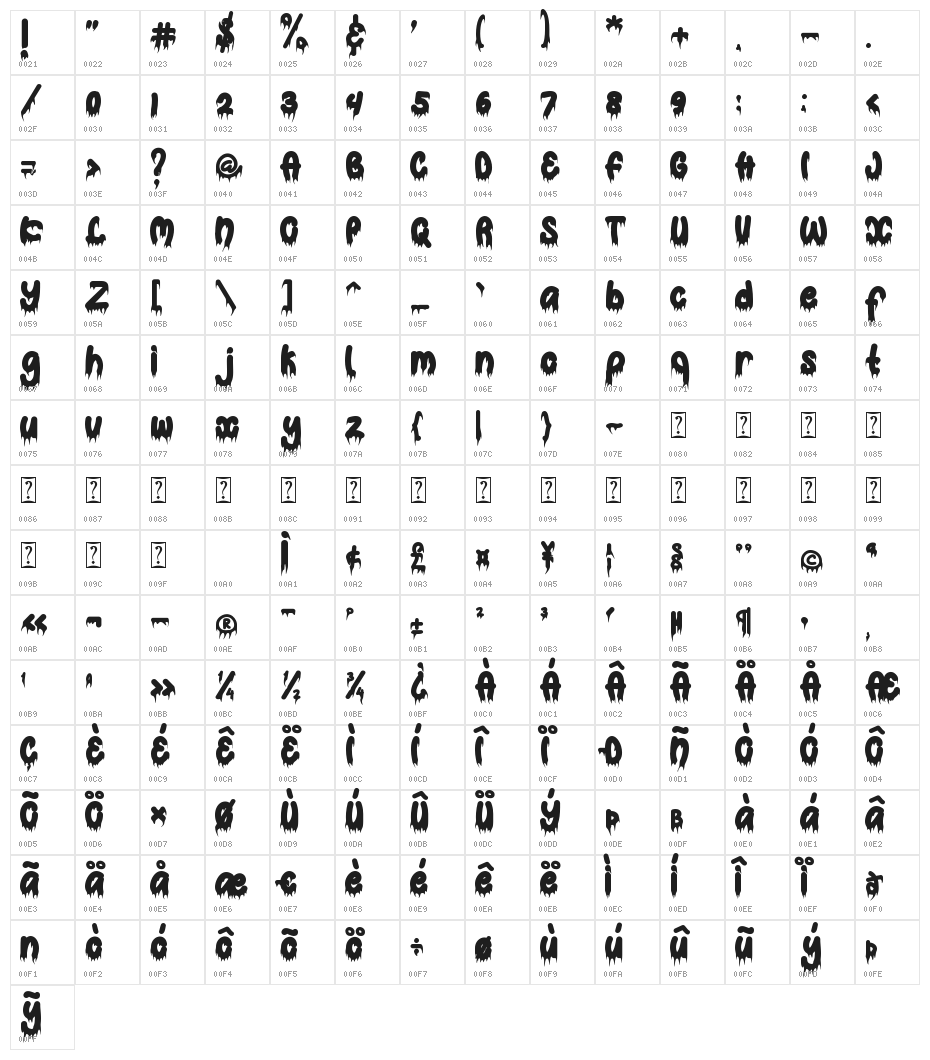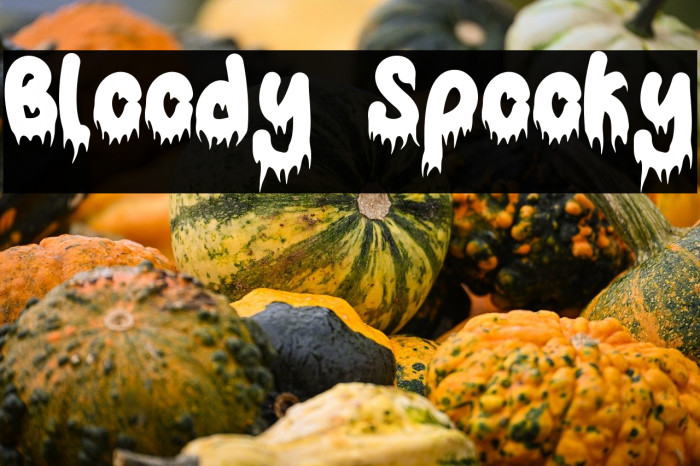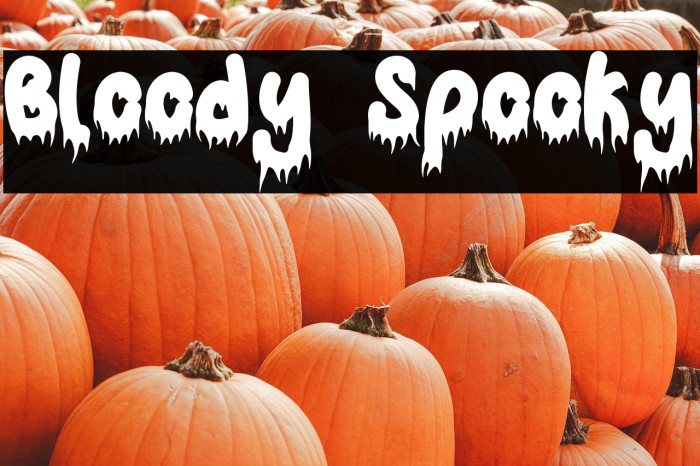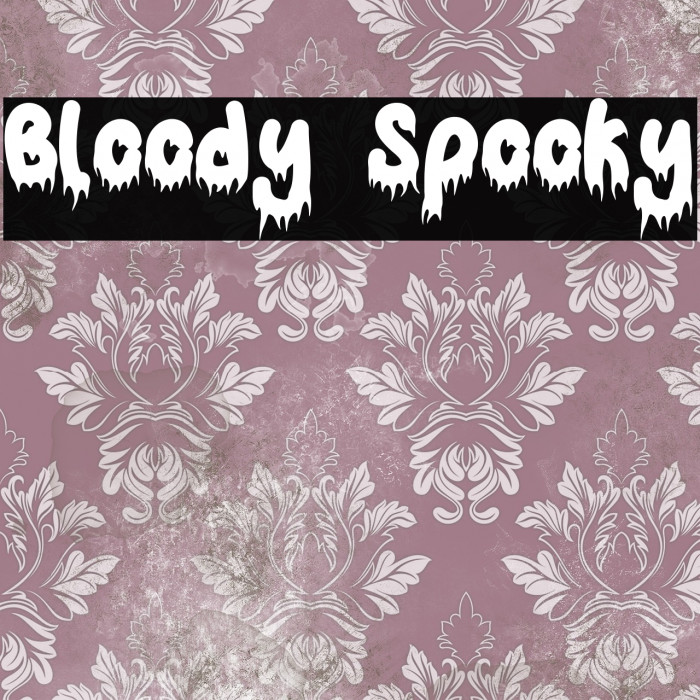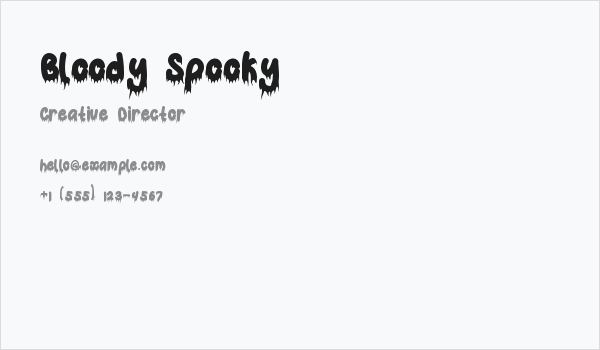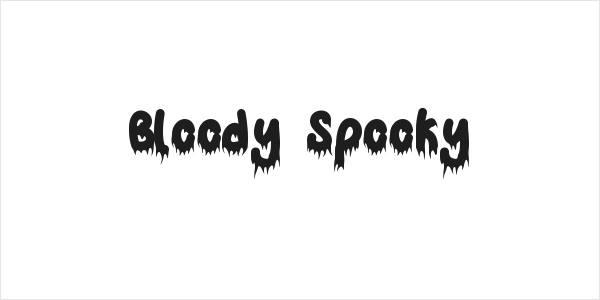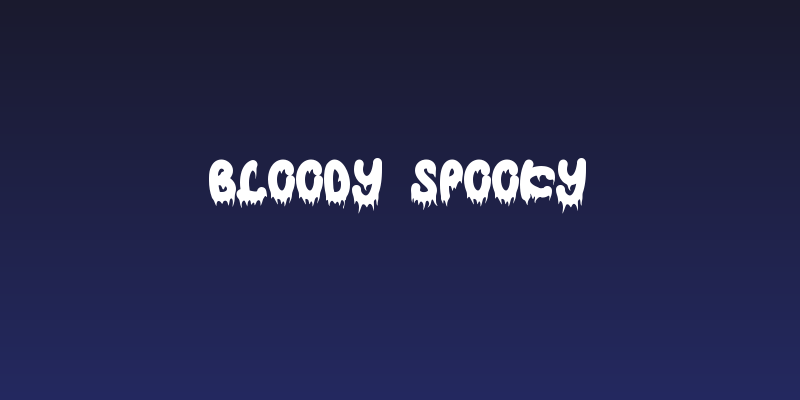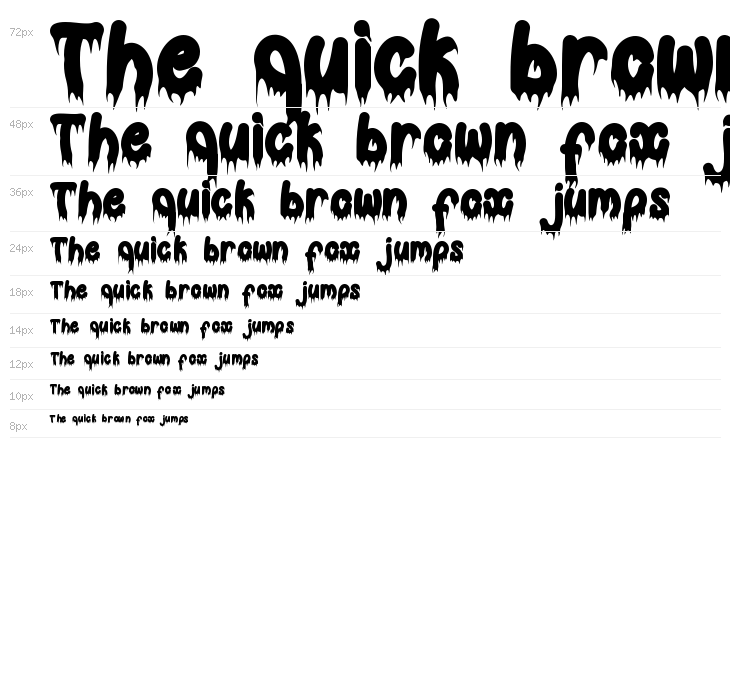
Bloody Spooky Font
Bloody Spooky Description
This font features a chilling, dripping effect that resembles oozing liquid or blood, making it perfect for horror-themed designs. The characters are bold and have a unique, irregular shape that adds to the eerie aesthetic. The uppercase and lowercase letters maintain a consistent style, with each character appearing as if it's melting or dripping. The numbers and special characters follow the same design principle, ensuring a cohesive look across all text elements. This font is ideal for creating a spooky atmosphere in any project.
| Proposed Projects | Ideal for Halloween posters, horror movie titles, haunted house flyers, and spooky-themed event invitations. |